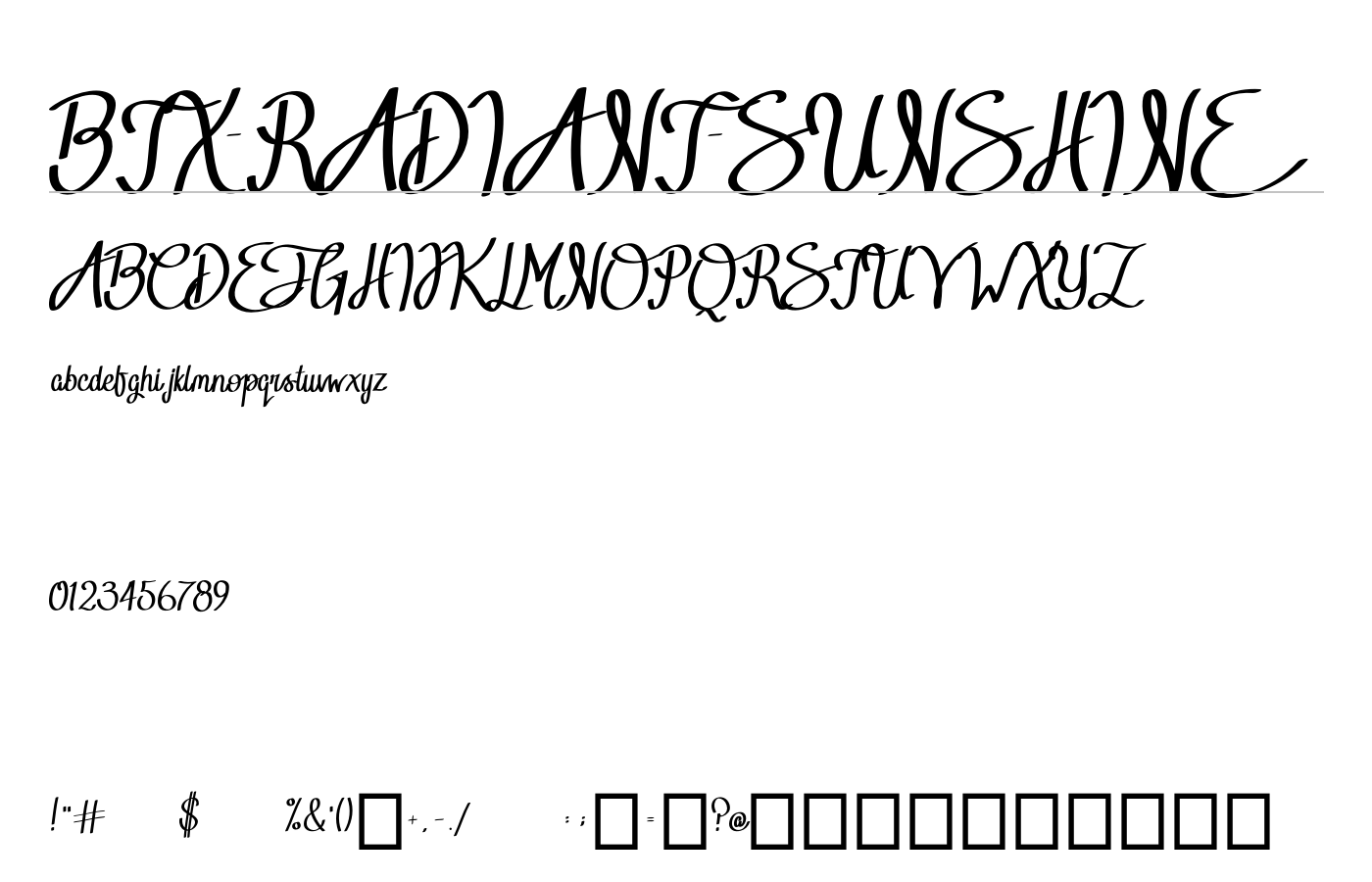
BTX-RADIANT-SUNSHINE is an elegant script font characterized by its flowing, handwritten style with a graceful, slightly condensed structure. It features delicate, smooth strokes with moderate contrast and a sophisticated flair, making it ideal for designs that require a personal, artistic touch with a hint of formality. This font works wonderfully for invitations, branding, and creative headlines where a refined, stylish impression is desired.
BTX-RADIANT-SUNSHINE Font
About BTX-RADIANT-SUNSHINE Font